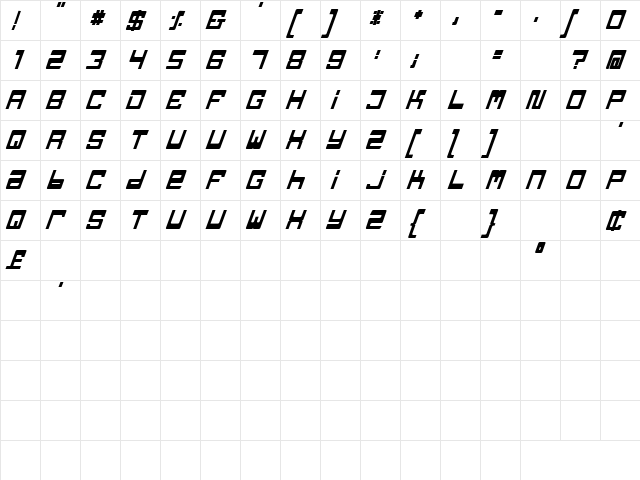
TPF Jaib BoldItalic
Design Context for TPF Jaib Typeface
TPF Jaib is a composed and adaptable typeface that performs quietly and consistently across a wide range of design contexts. The slanted form adds forward momentum and visual energy. Its bold stroke weight gives it real presence on the page.
Pro Tip: Try TPF Jaib for annotation and caption copy alongside an upright companion — the contrast in angle creates a dynamic but ordered typographic system.